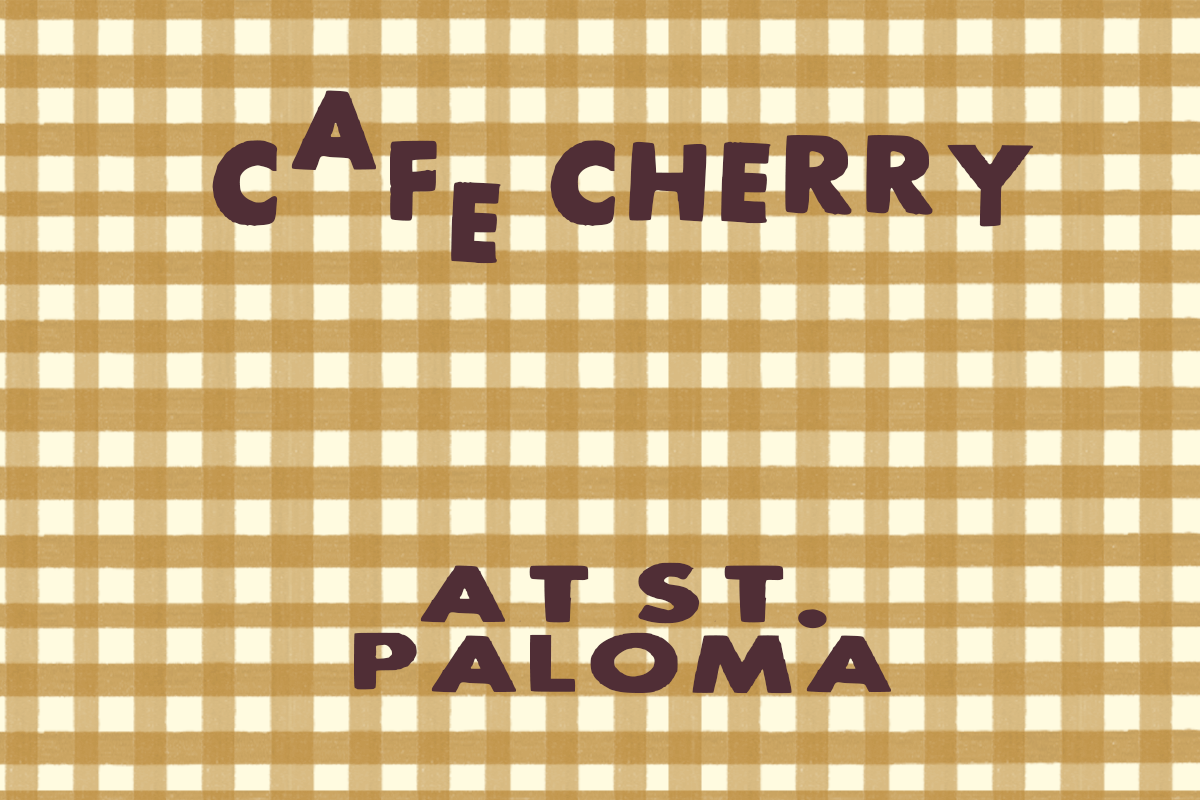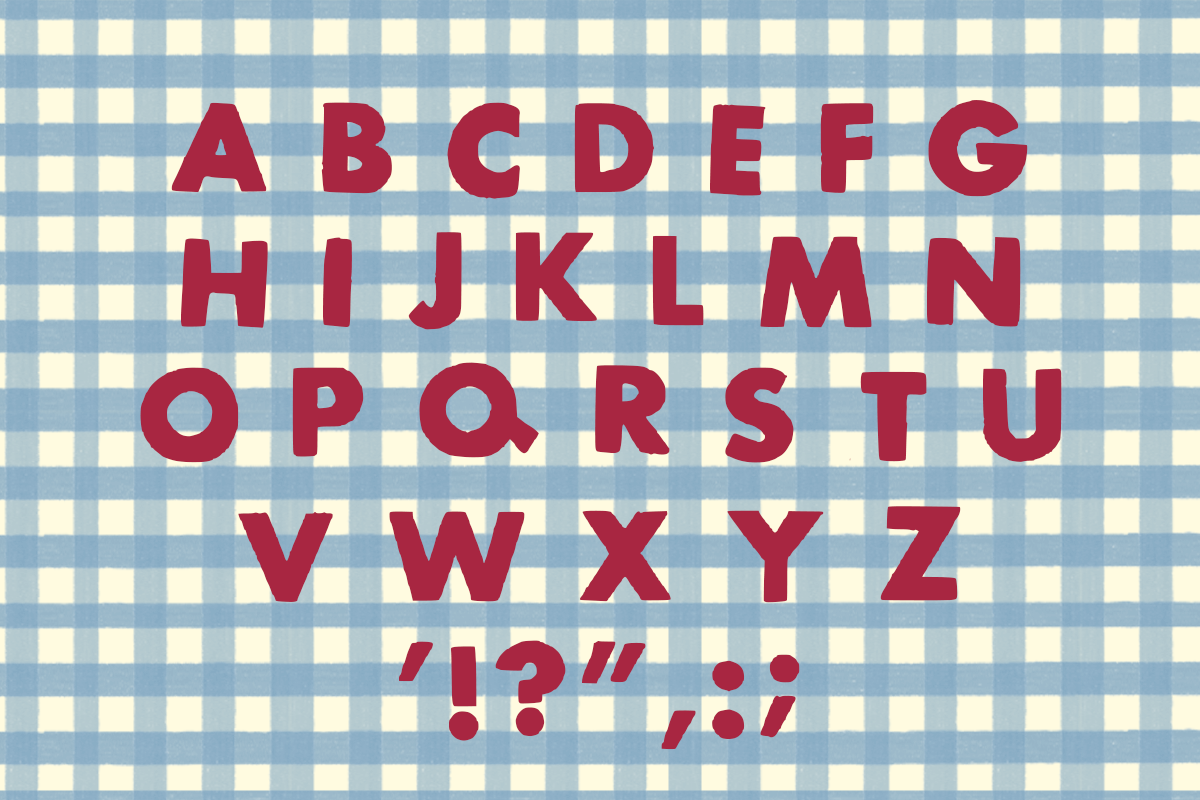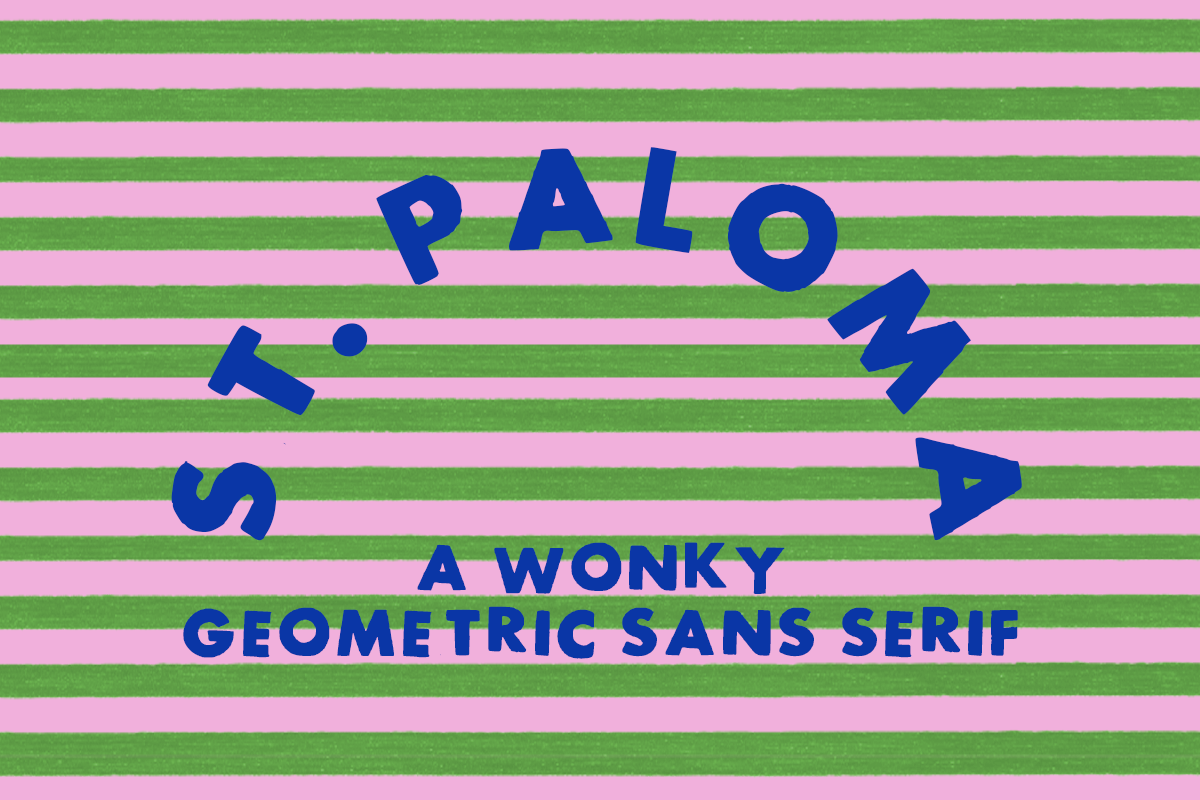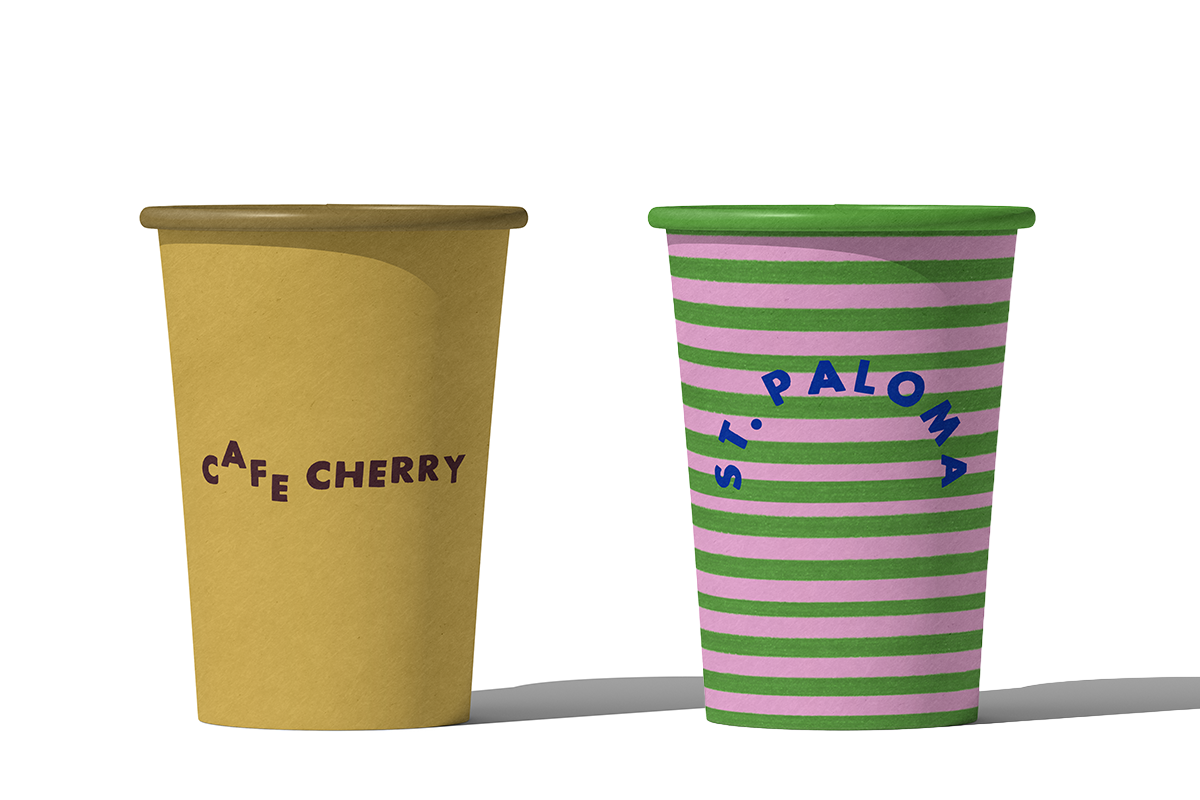
St. Paloma - Retro Sans Serif
St. Paloma is a geometric sans serif with a retro film feel, rooted in European modernist typography. Ideal for cafe menus, food packaging, and projects spanning music and art, it’s versatile and adaptable. Slightly jagged strokes lend a gently weathered texture, giving designs a subtle, retro-worn character.
Clean geometric form that stays highly legible across uses
Subtle worn texture that adds warmth and character
Versatile style that fits food, editorial, and lifestyle design
Retro modern feel that blends nostalgia with contemporary use
Letters A–Z (uppercase only)